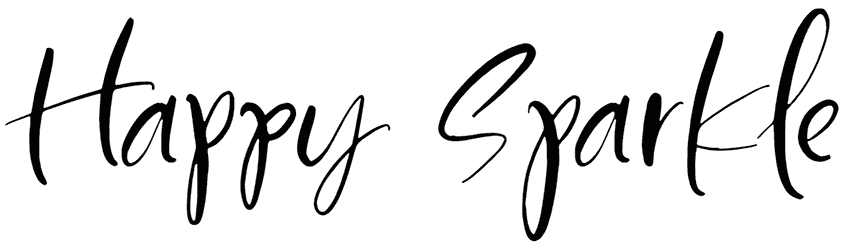
Happy Sparkle Font
Whether you’re creating a poster, a card, or a digital design, you’ll be happy with the results if you use the handwritten font Happy Sparkle. This font can be difficult to read, but it will produce excellent results.